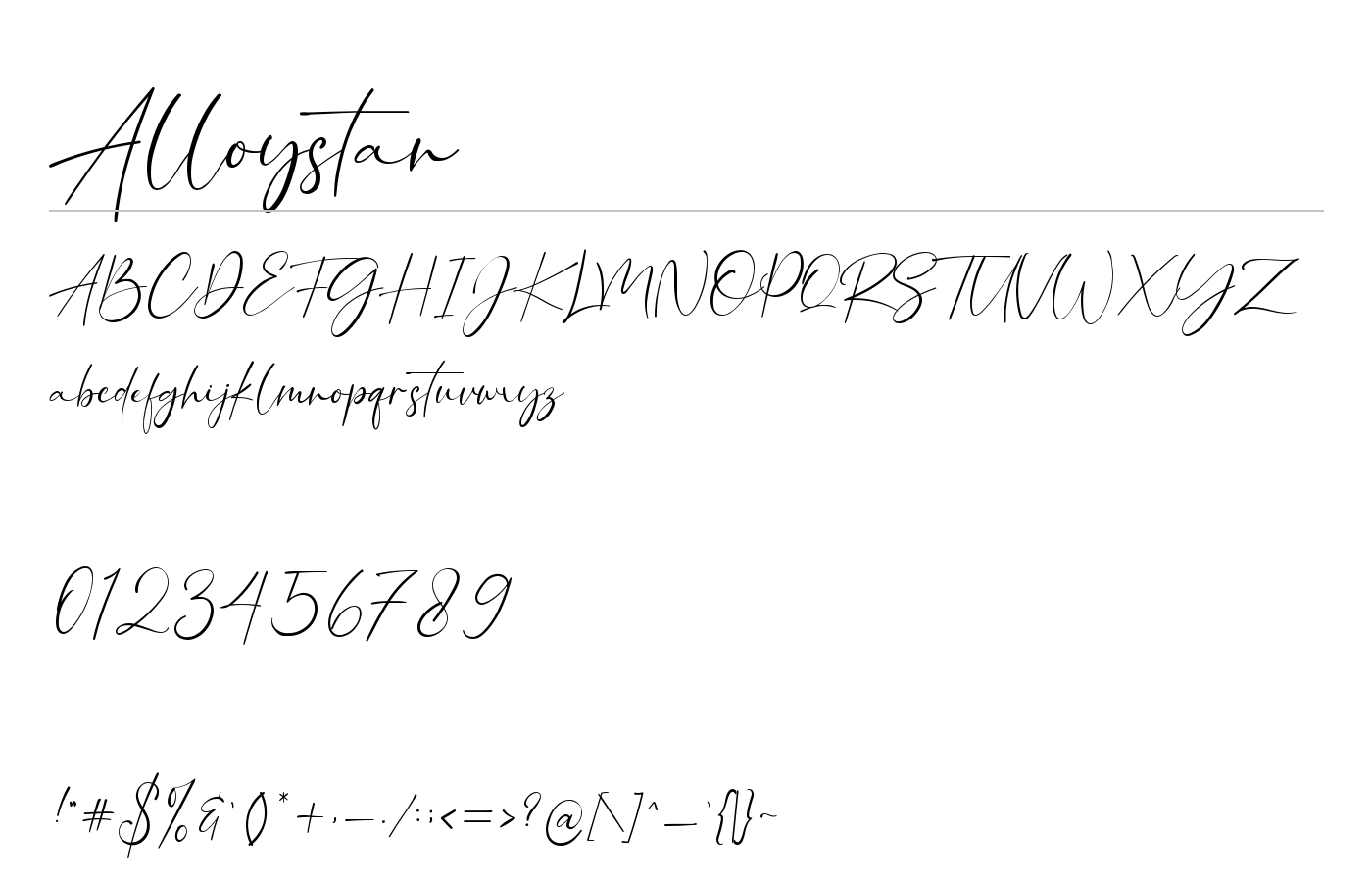
Alloystan is a delicate, handwritten script font with elegant, flowing lines and a light, airy feel. Its slender strokes and casual yet refined style make it perfect for adding a personal, sophisticated touch to invitations, branding, and editorial projects. This font works beautifully in designs that seek a graceful, modern, and artistic flair.
Alloystan Font
About Alloystan Font